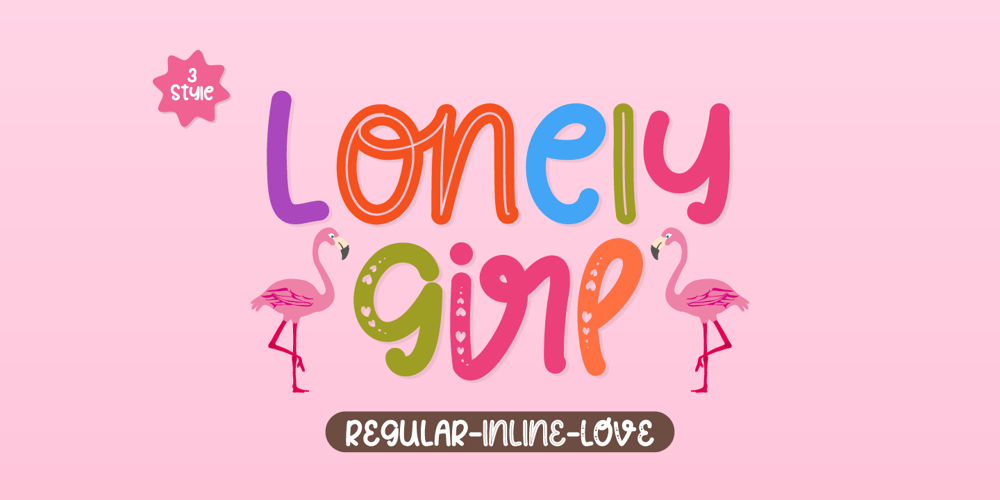
Lonely Girl
Lonely Girl font
Lonely Girl Font Family was designed by Prio Nurokhim Aji and published by Prioritype. Lonely Girl contains 3 styles and family package options. Sometimes, just one font style is not too optimal. With this font, I present a unique and cheerful font with three styles for you. Easy and fast to use in design projects such as accessories, book covers, crafts, logos, birthday greetings, backgrounds behind, quotes, unique packaging designs, and much more that you can explore. See some of the previews above for reference.Features:-Uppercase-Lowercase-Numeral-Punctuation-Multilingual-Ligature-AlternateNote: Use a program that supports the Opentype feature and the glyph panel is available, so you can see the various alternative characters available. Examples of programs such as Adobe Illustrator, Corel Draw or Inkscape.